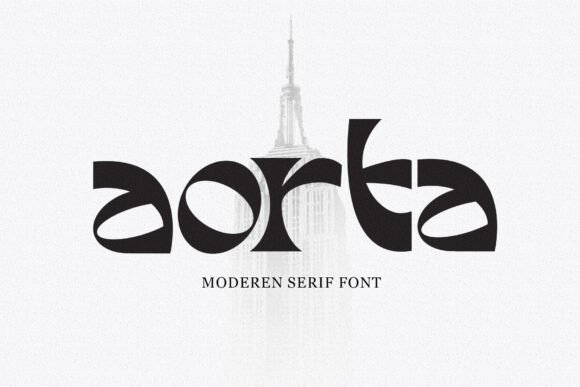
Aorta Font: Elevate Your Designs with a Modern Serif Style
In the world of typography, fonts play a crucial role in conveying the message and aesthetic of a design. With numerous font styles available, finding the perfect one that combines modernity with elegance can be challenging. This is where the Aorta font comes into play. Known for its unique serif character, the Aorta font has gained popularity among designers for its ability to add a touch of sophistication to various creative projects. In this article, we’ll delve into the features of the Aorta font, its applications, and why it has become a go-to choice for designers worldwide.
Key Features of Aorta Font
The Aorta font boasts a modern style that is characterized by a unique blend of smooth curves and bold elements. This combination results in a contemporary yet elegant look, making it suitable for a wide range of design applications. Here are some of the standout features of the Aorta font:
- Unique Serif Character: The Aorta font features a distinctive serif style that sets it apart from traditional serif fonts. The serifs add a touch of elegance and sophistication, making it ideal for designs that require a classy look.
- Smooth Curves and Bold Elements: The letters in the Aorta font are designed with smooth curves and bold elements, creating a visually appealing contrast. This contrast adds depth to the font, making it more engaging and dynamic.
- Strong Aesthetic with Attractive Negative Space: Each letter in the Aorta font has a strong aesthetic appeal, thanks to the thoughtful use of negative space. The negative space adds a minimalist touch, making the font suitable for designs that require a clean and artistic look.
Applications of Aorta Font
The versatility of the Aorta font makes it suitable for a wide range of design applications. Here are some of the most popular uses of the Aorta font:
- Branding Designs: The Aorta font is an excellent choice for branding designs, as it can help create a strong and memorable visual identity. Its unique style can help brands stand out in a crowded market.
- Poster Editing: The bold and elegant style of the Aorta font makes it perfect for poster editing. It can be used to create eye-catching headlines and titles that grab the viewer’s attention.
- Book Covers: The Aorta font can add a touch of sophistication to book covers, making them more appealing to readers. Its unique style can help books stand out on crowded bookstore shelves.
- Vintage Designs: Despite its modern style, the Aorta font can also be used in vintage designs. Its unique serif character can add a touch of nostalgia to designs, making them more interesting and dynamic.
- Business Cards: The Aorta font is an excellent choice for business cards, as it can help create a professional and memorable impression. Its elegant style can help businesses stand out in a competitive market.
- Creative Projects: The Aorta font can be used in a wide range of creative projects, including advertisements, magazines, and websites. Its versatility and unique style make it an excellent choice for designers looking to add a touch of elegance to their designs.
Benefits of Using Aorta Font
The Aorta font offers numerous benefits to designers, including:
- Unique Style: The Aorta font has a unique style that sets it apart from other fonts. Its distinctive serif character and smooth curves make it a standout choice for designers.
- Versatility: The Aorta font is highly versatile, making it suitable for a wide range of design applications. Its elegant style can be used in both modern and vintage designs.
- Elegance: The Aorta font adds a touch of elegance to designs, making it perfect for projects that require a classy look.
- Readability: The Aorta font is highly readable, making it suitable for designs that require a clear and concise message.
Tips for Using Aorta Font
Here are some tips for using the Aorta font effectively in your designs:
- Pair it with Other Fonts: The Aorta font can be paired with other fonts to create a unique and visually appealing contrast. Experiment with different font combinations to find the perfect match.
- Use it for Headings: The Aorta font is perfect for headings and titles, as it can help grab the viewer’s attention. Use it to create eye-catching headlines and titles.
- Experiment with Colors: The Aorta font can be used in a variety of colors, from bold and bright to subtle and muted. Experiment with different colors to find the perfect match for your design.
- Pay Attention to Spacing: The Aorta font has a strong aesthetic appeal, but it requires careful attention to spacing. Make sure to leave enough space between letters and lines to create a clean and elegant look.
In conclusion, the Aorta font is a versatile and elegant font that can elevate your designs to the next level. Its unique serif character, smooth curves, and bold elements make it a standout choice for designers. With its wide range of applications and benefits, the Aorta font is an excellent addition to any designer’s toolkit. Whether you’re working on a branding project, poster editing, or book cover design, the Aorta font is sure to impress.